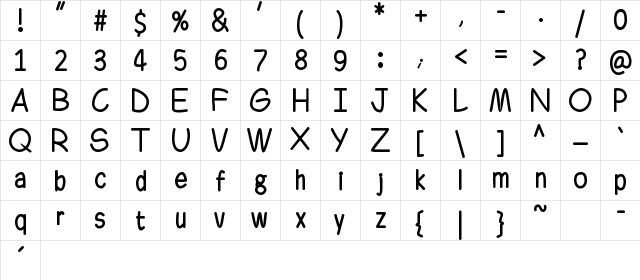
Ferrero Rocker Regular
| Designer | Letterara 2019 |
Design Context for Ferrero Rocker Typeface
Ferrero Rocker offers clean, dependable letterforms without strong stylistic allegiance, making it a practical choice for designers who need flexibility.